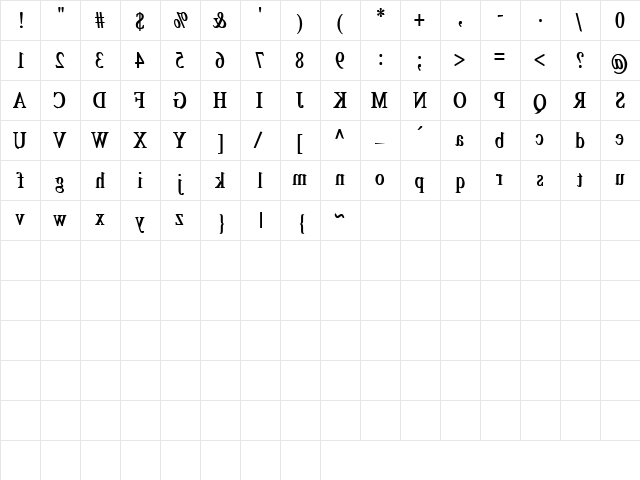
Chain 4 Bold
Design Context for Chain 4 Typeface
Chain 4 is a composed and adaptable typeface that performs quietly and consistently across a wide range of design contexts. Its bold stroke weight gives it real presence on the page.